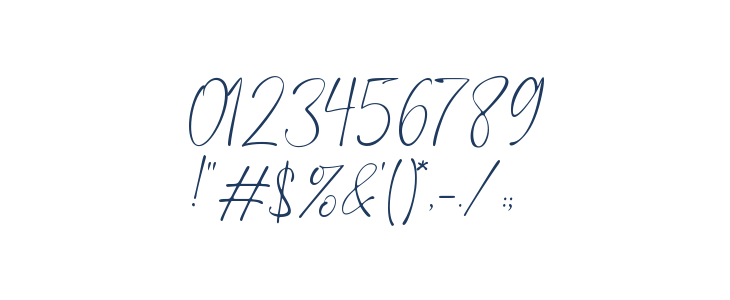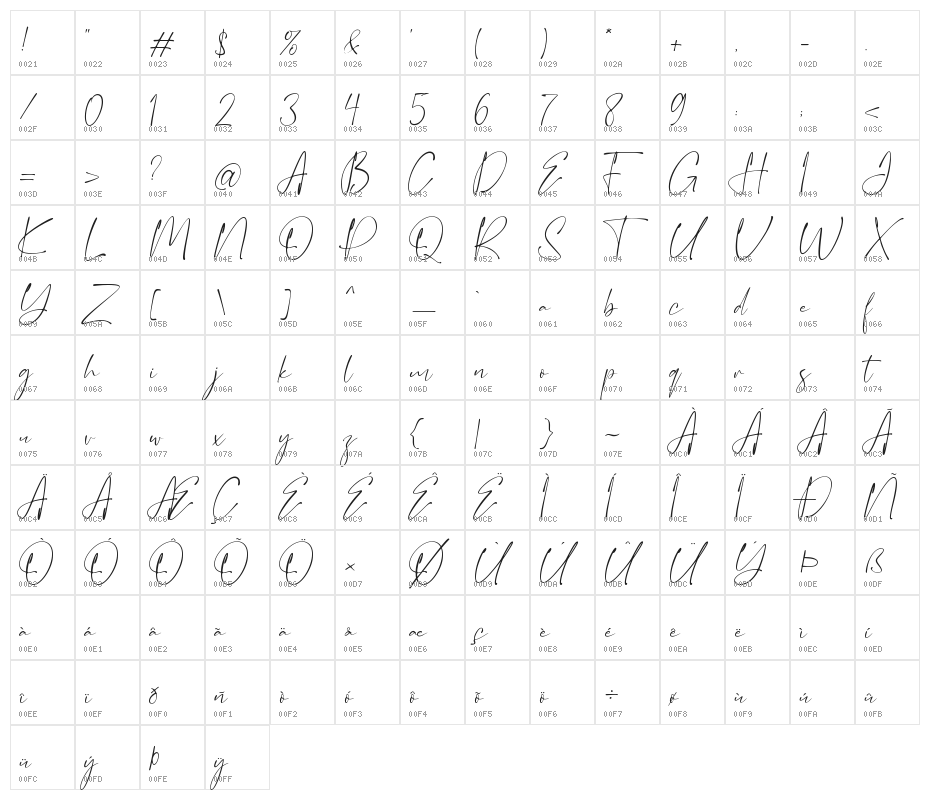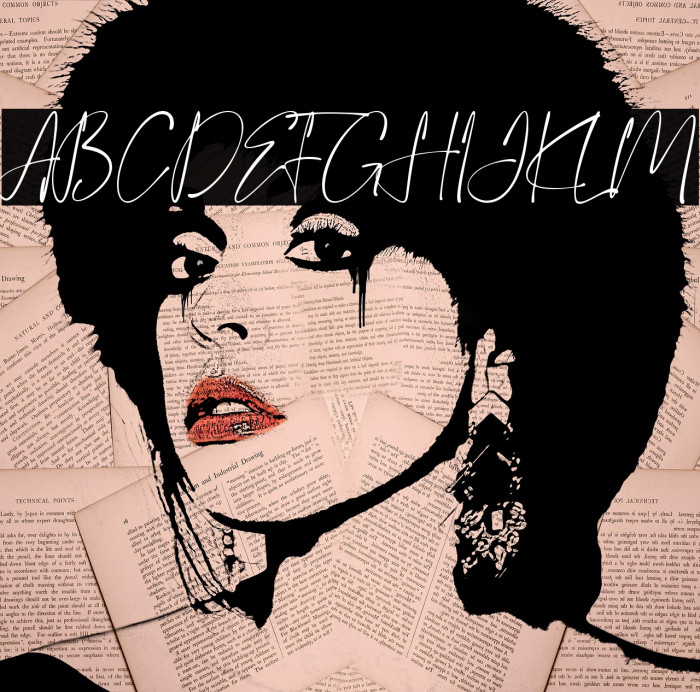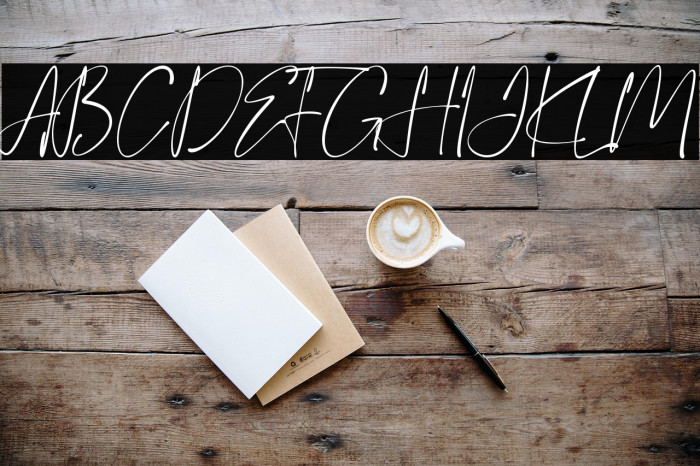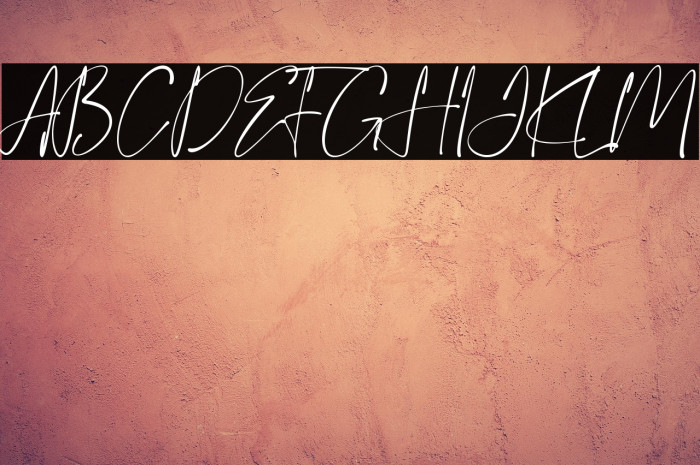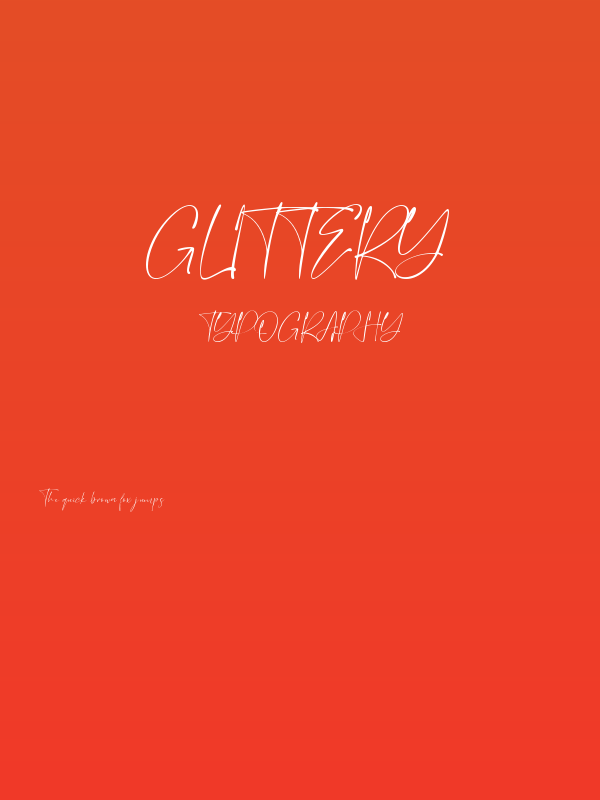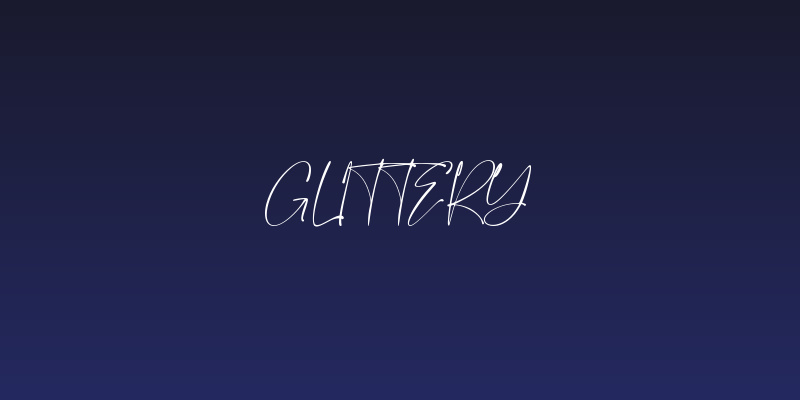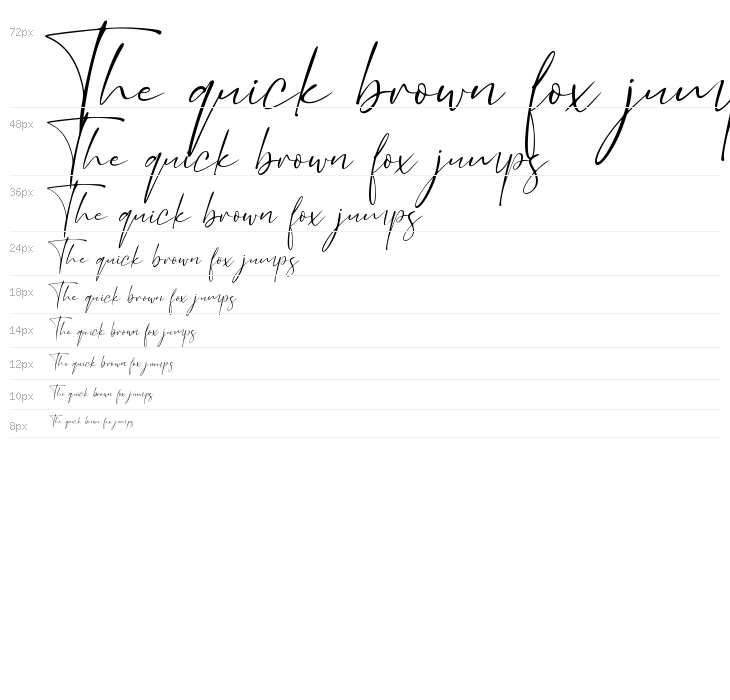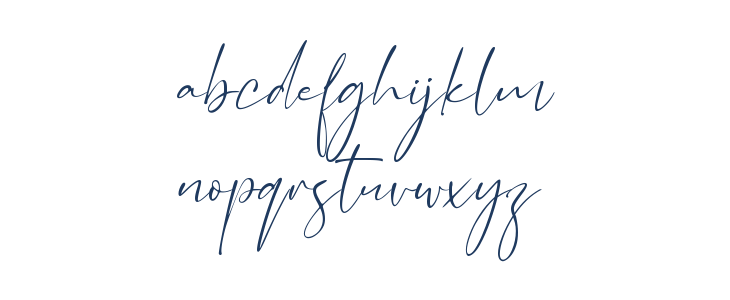
Glittery Font
Glittery Description
This font features a lively and expressive handwritten style, characterized by its fluid and dynamic letterforms. The uppercase letters are tall and slender, with a slight slant that adds to the energetic feel. The lowercase letters maintain a consistent flow, with some characters extending below the baseline, enhancing the casual and artistic appearance. The numerals are well-integrated, matching the overall aesthetic with their elongated forms. Special characters are creatively designed, adding a playful touch to the font. The strokes vary in thickness, providing a natural and authentic handwritten look.